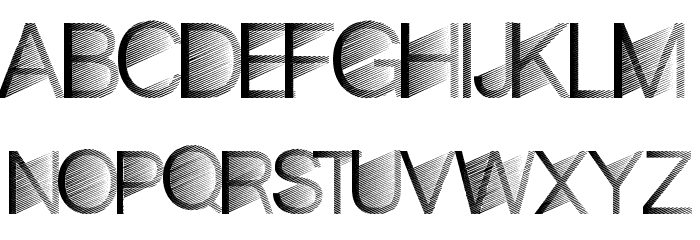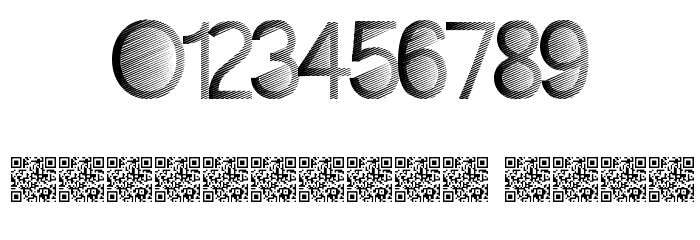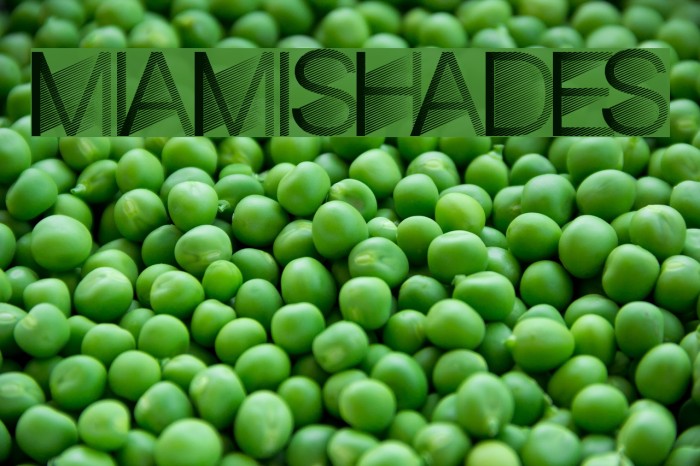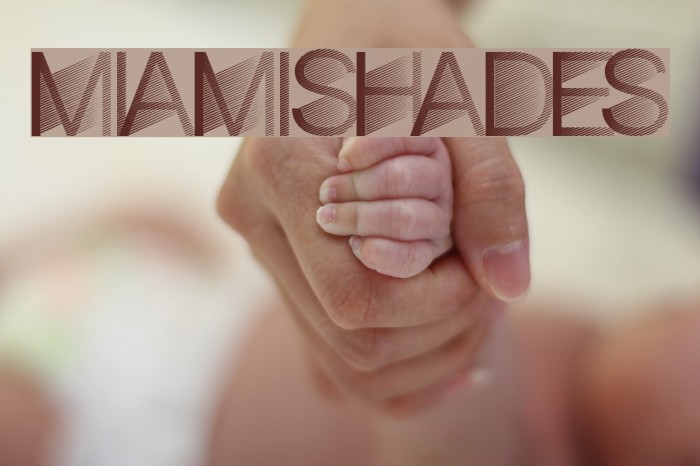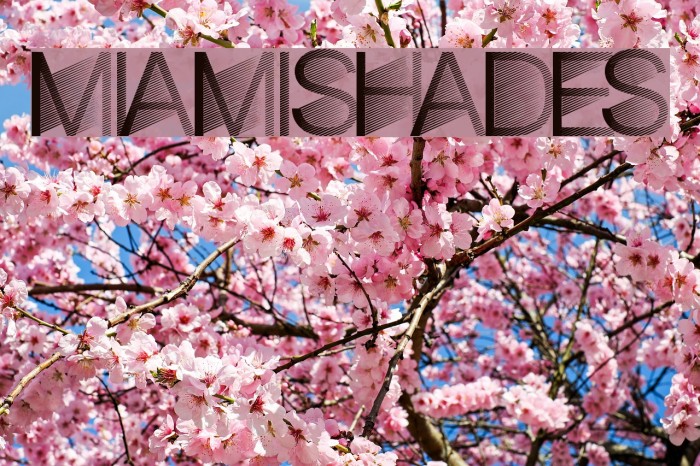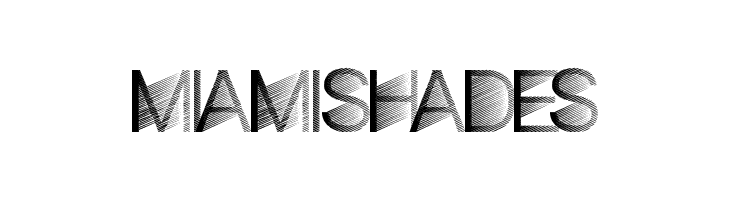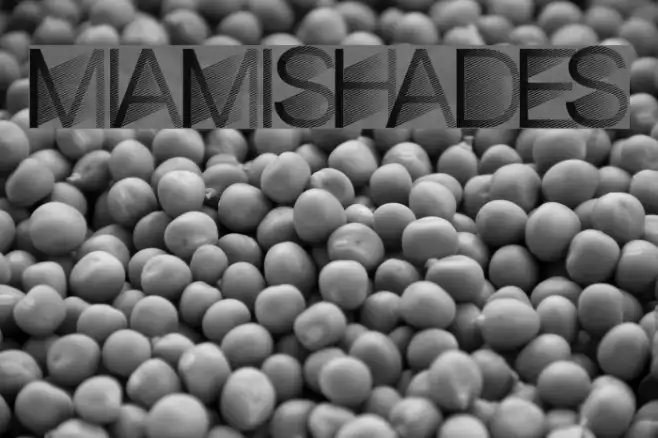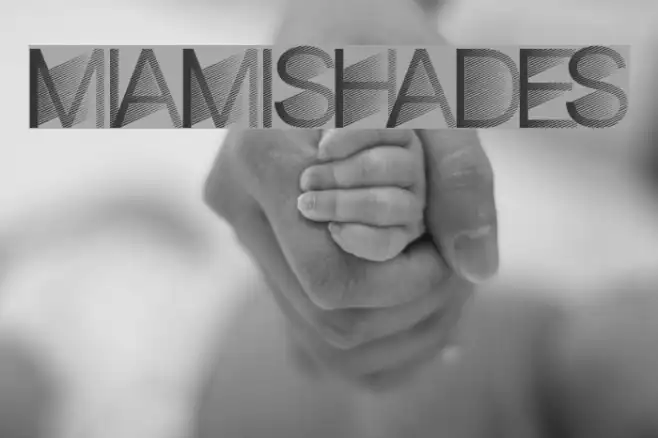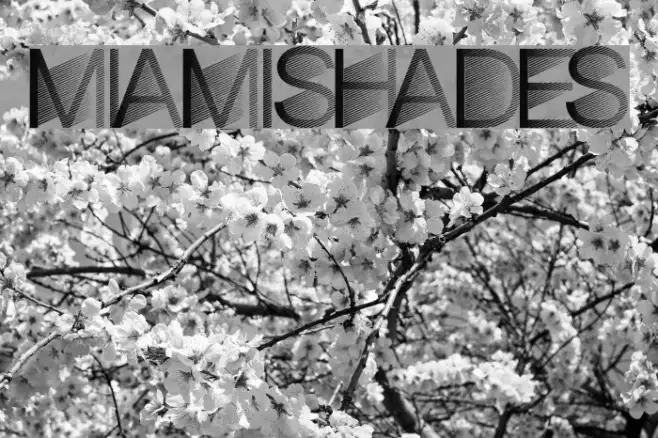
MiamiShades Font
This font features a unique, modern design with a distinct 3D effect created by diagonal lines running through each character. The uppercase and lowercase letters maintain a consistent style, emphasizing a futuristic and dynamic appearance. The numbers and special characters follow the same pattern, ensuring a cohesive look across all elements. The font's bold and striking presence makes it ideal for attention-grabbing designs, while the diagonal lines add a sense of movement and depth.
A modern, 3D-effect font with diagonal lines creating a dynamic look.
- Proposed Projects: Ideal for branding, posters, and digital media where a modern and eye-catching design is desired.